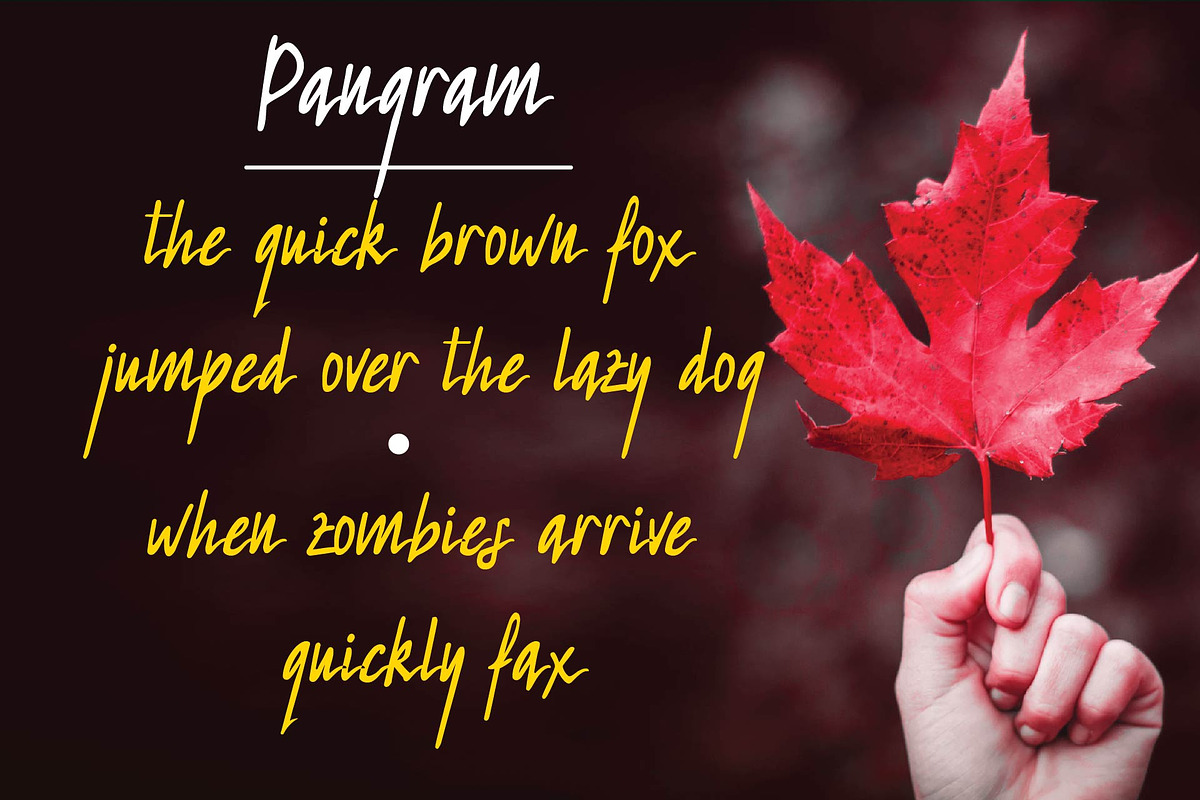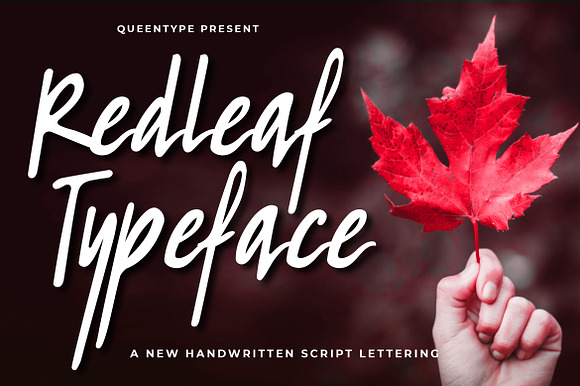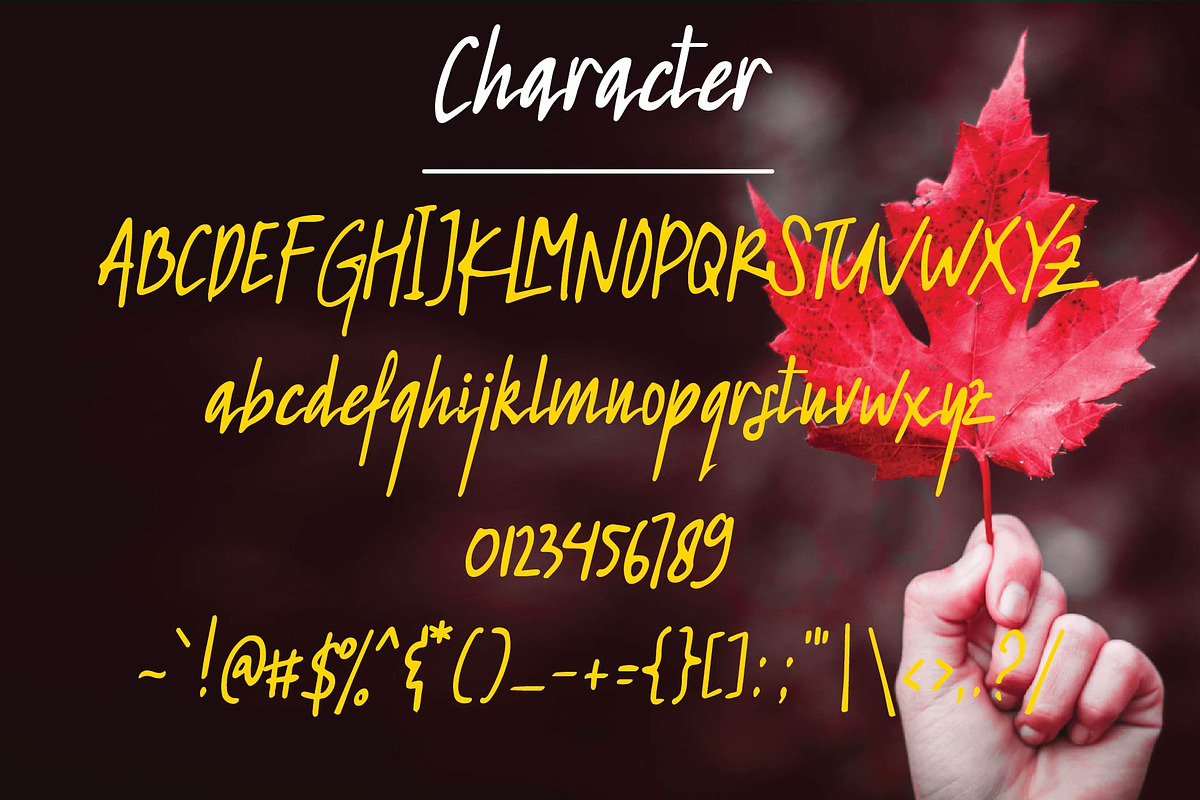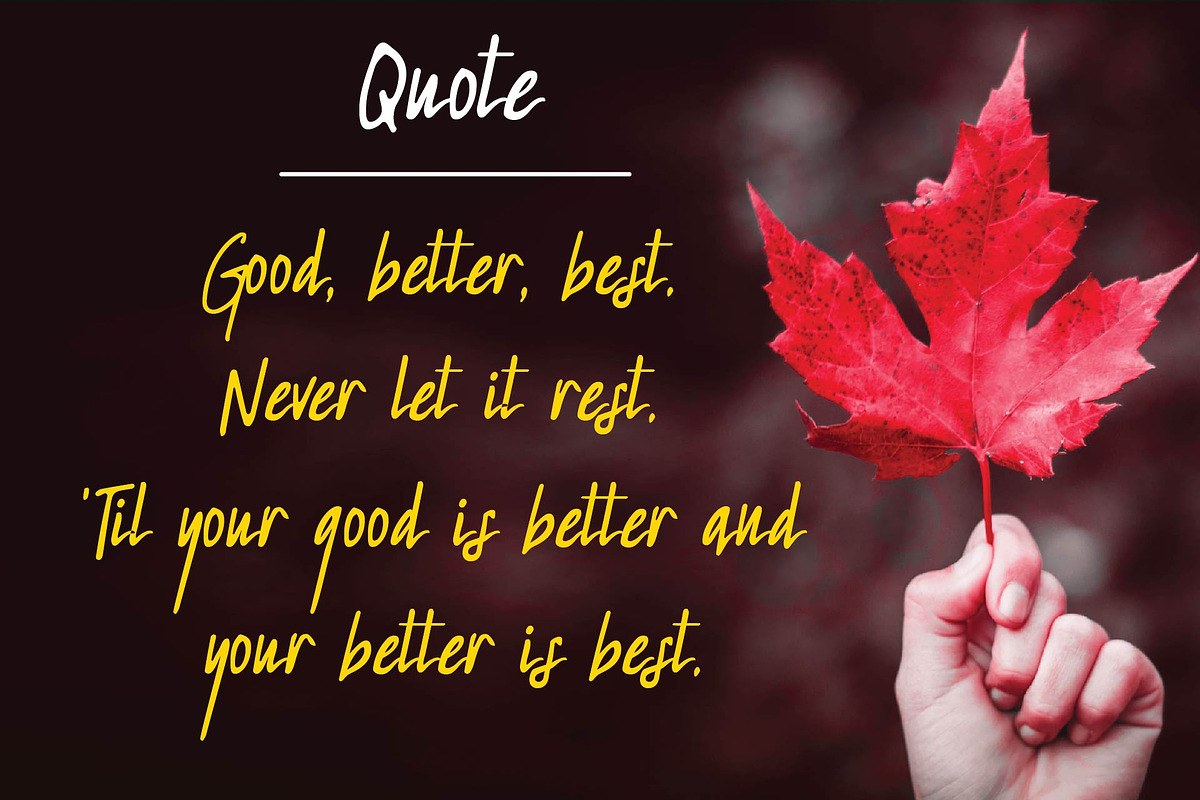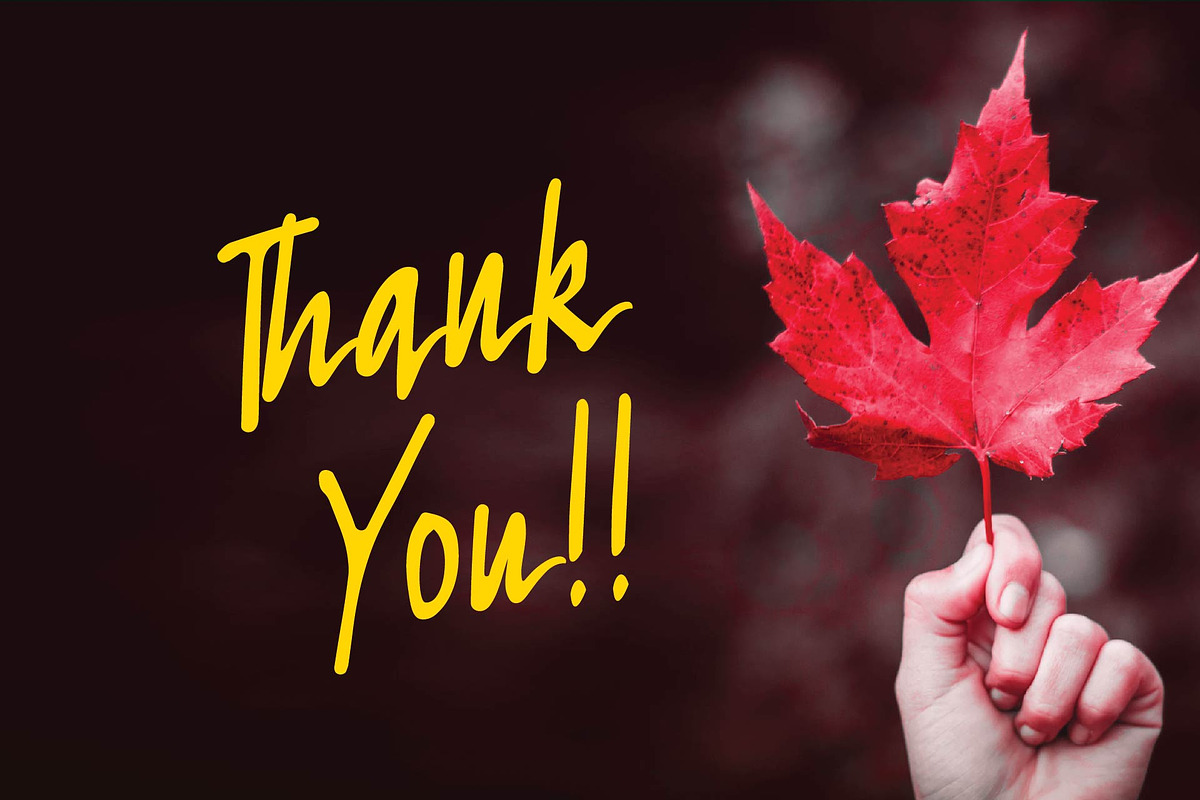
Redleaf Typeface
Redleaf Typeface is a A New Handwritten Script Lettering Typeface with Unique looks.
Great for Apparel Brand, Logos, printed quotes, invitations, image overlays, greeting cards, product packaging, text headers, any greeting cards, book cover, Painting design style, or any design that needs natural and personal touch & whatever else your imagination holds! Mix and match the alternate characters to add an attractive message to your design.
- Mix and match the alternate characters to add an attractive message to your design.
Why Redleaf Typeface is worth a look
Redleaf Typeface by QueenType fits naturally into Branding, posters, packaging, typography.